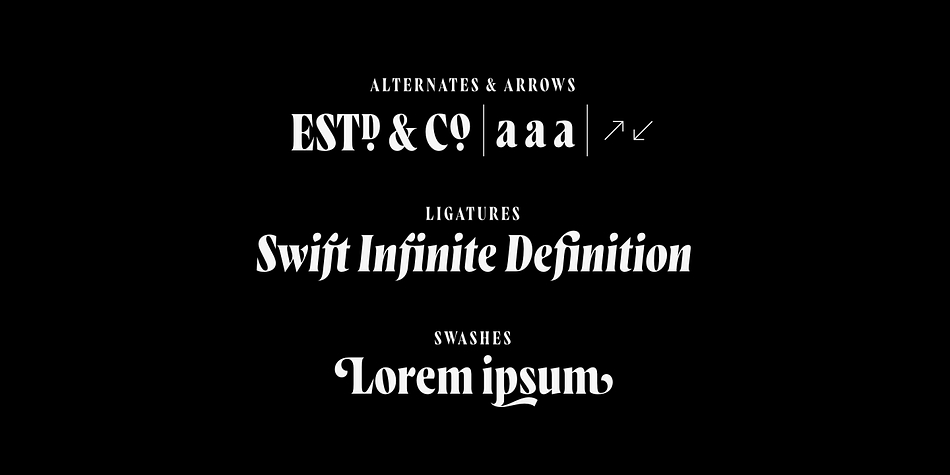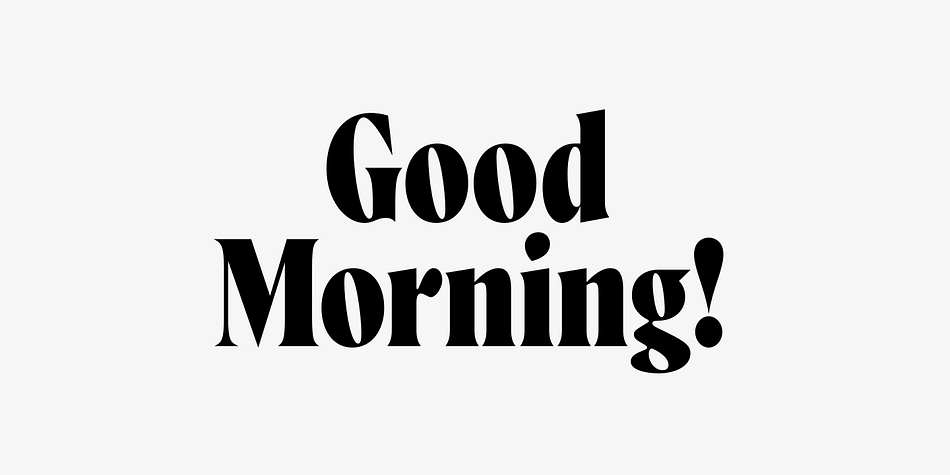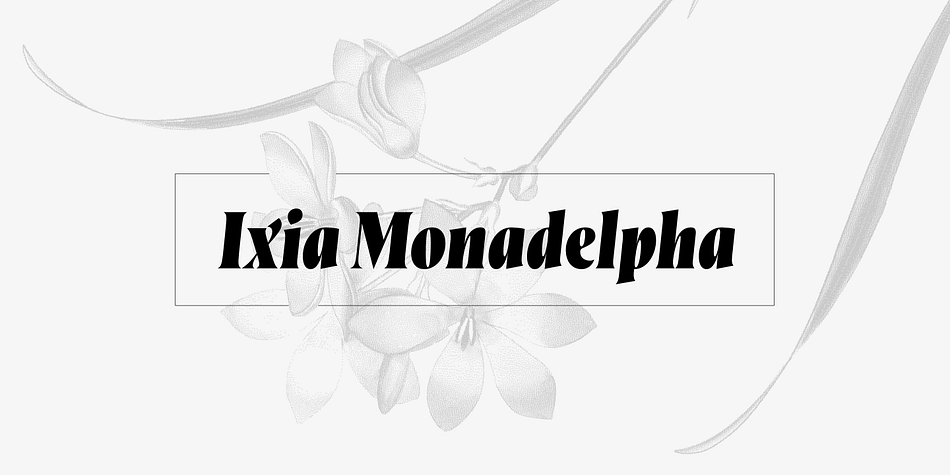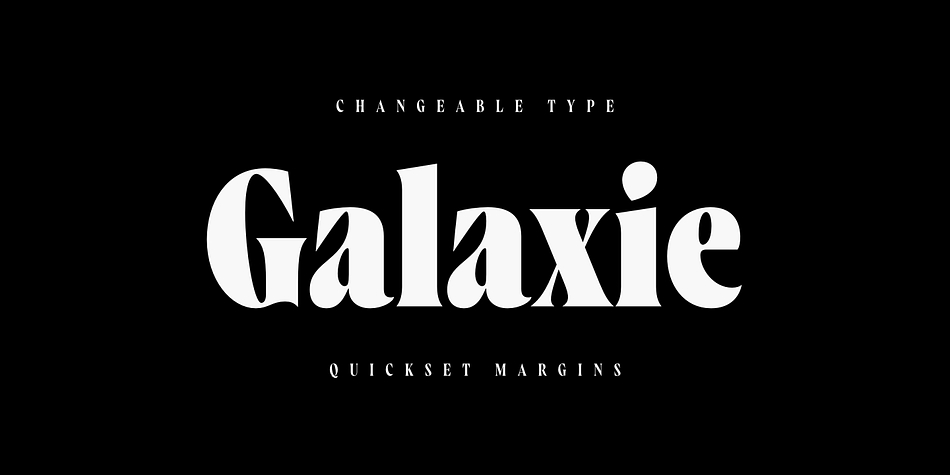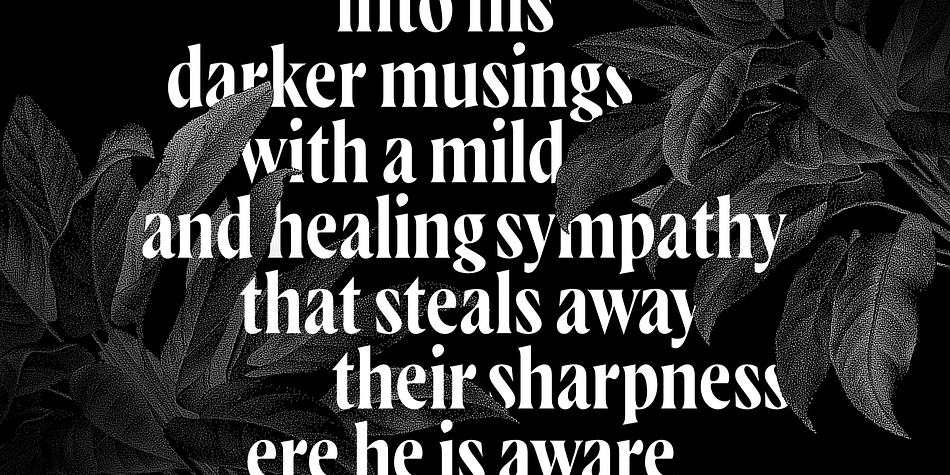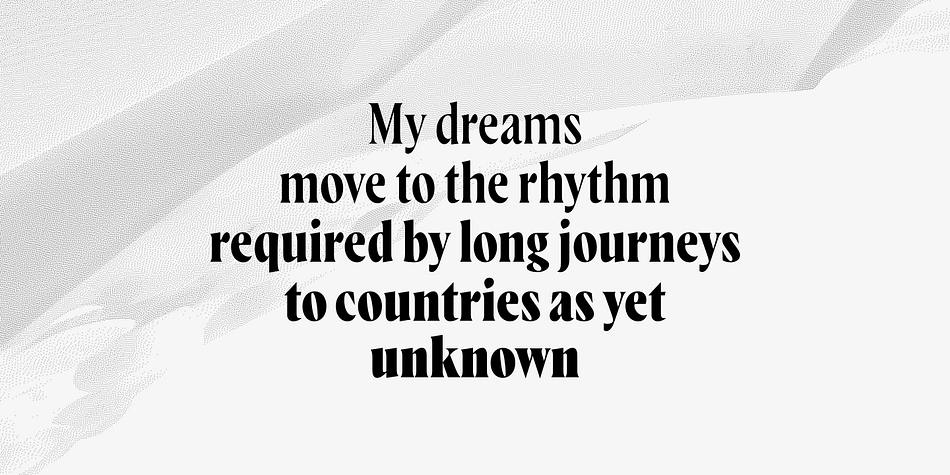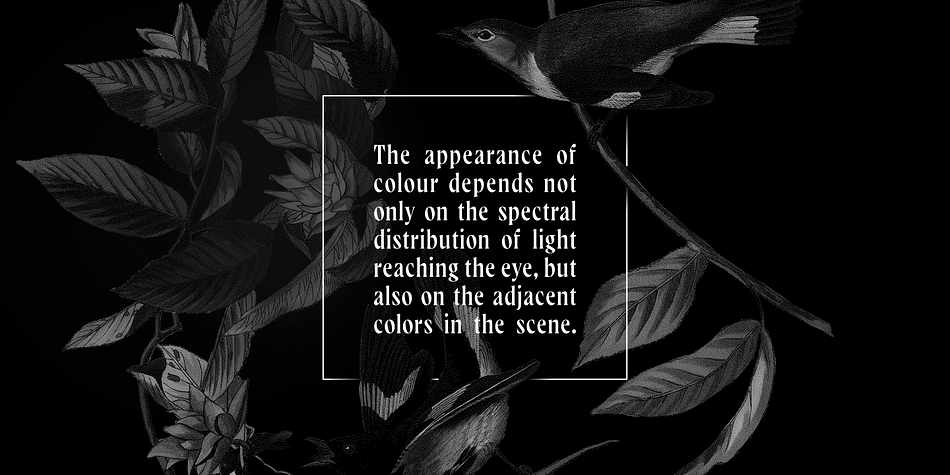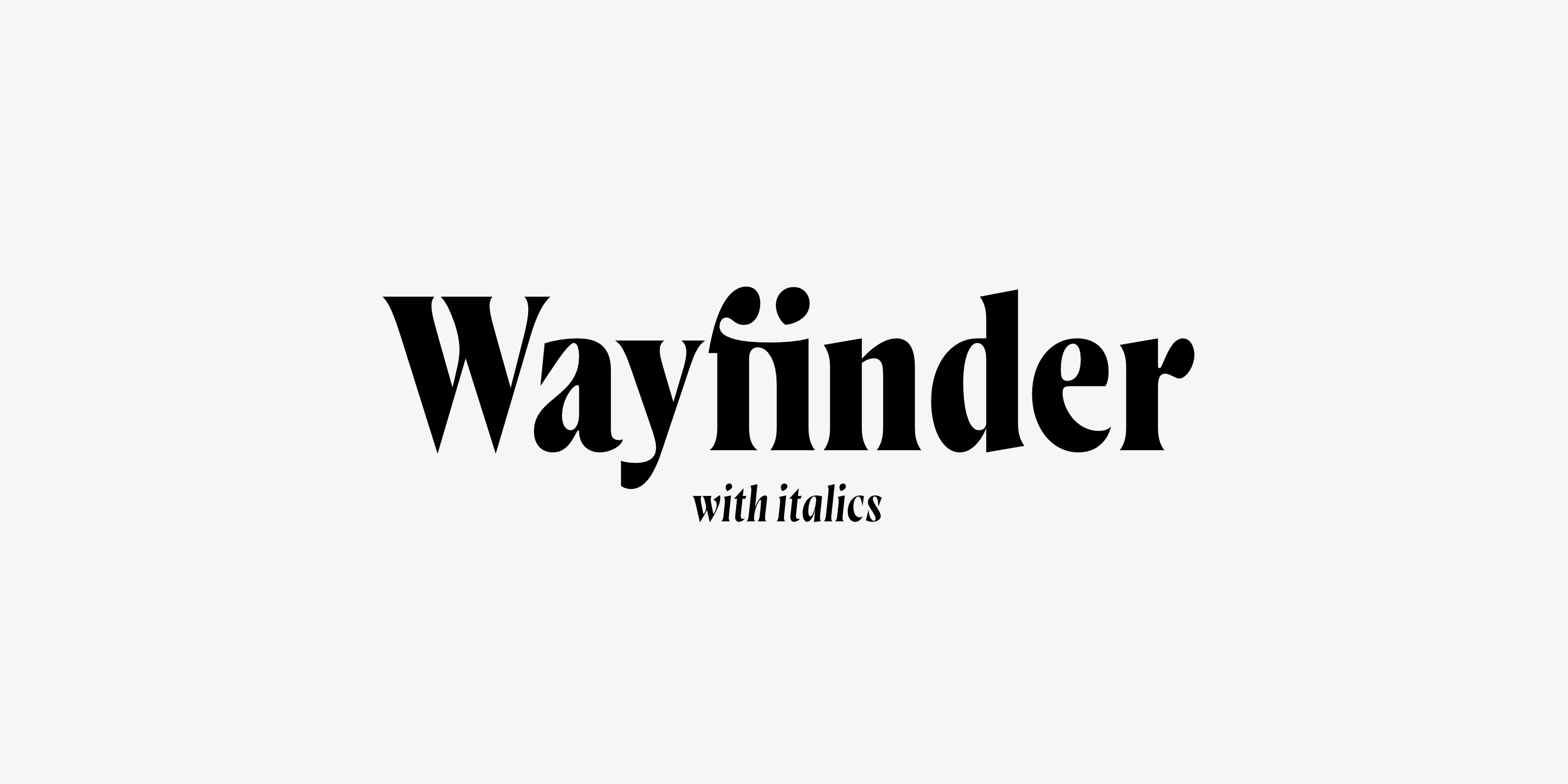
Designed by Connary Fagen, Wayfinder CF is a display serif and serif font family. This typeface has fourteen styles and was published by Connary Fagen Type Design.
Wayfinder CF imparts both elegance and urgency to any text. Equally warm and intense, Wayfinder is a display font family made for logos, headlines, titles, and other short texts. Seven weights cover everything from an airy thin to a brilliant heavyweight.